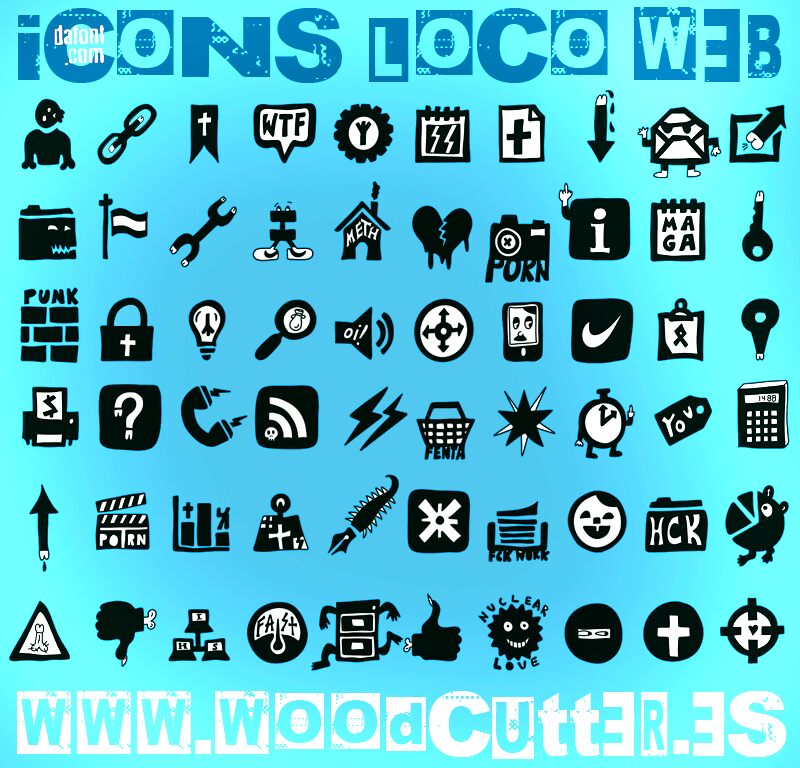
Icons Loco Web font by Woodcutter is a free display font created primarily for the internet. The display font features many extended characters in the forms of dingbats that can effortlessly form texts anywhere. At small sizes, each font character appears clearly, and at large sizes, it has a bold blocky design.
The ultimate utility font, uses for this font are near-endless and potentially include invitations, birthday cards, holiday cards, greeting cards, signs, headings, logos, and many other areas. Keep this font available for all display ventures as it could be unexpectedly useful.